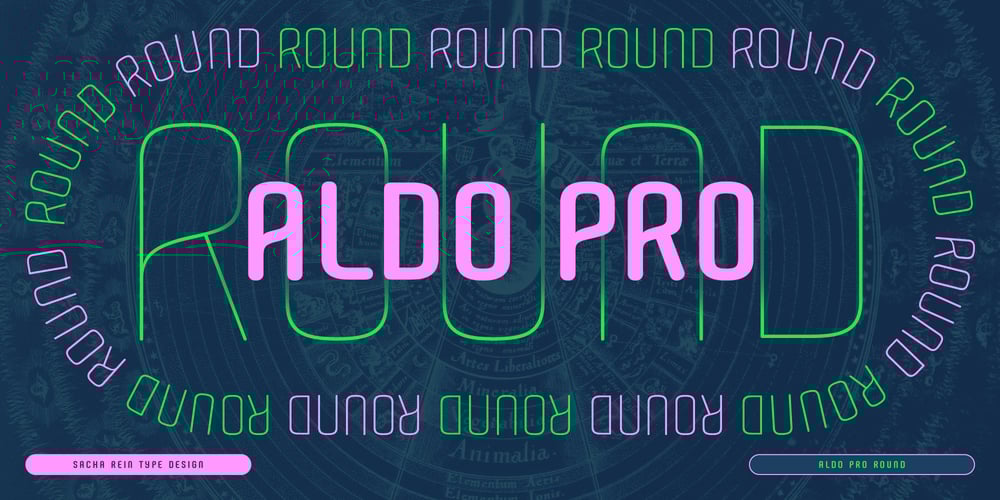
Aldo Pro Round Font Family was designed by Sacha Rein and published by Sacha Rein. Aldo Pro Round contains 8 styles and family package options. Aldo Pro Round – the cool new kid on the block! We’ve taken the iconic Aldo and gave it a chill makeover. Bye-bye sharp edges, hello smooth vibes! It’s like Aldo hit the gym and came back with curves in all the right places. This font’s got swag for days – whether you’re dropping fresh logos, building your brand, or just need some slick body text. It’s the perfect wingman for the revamped Aldo Pro.